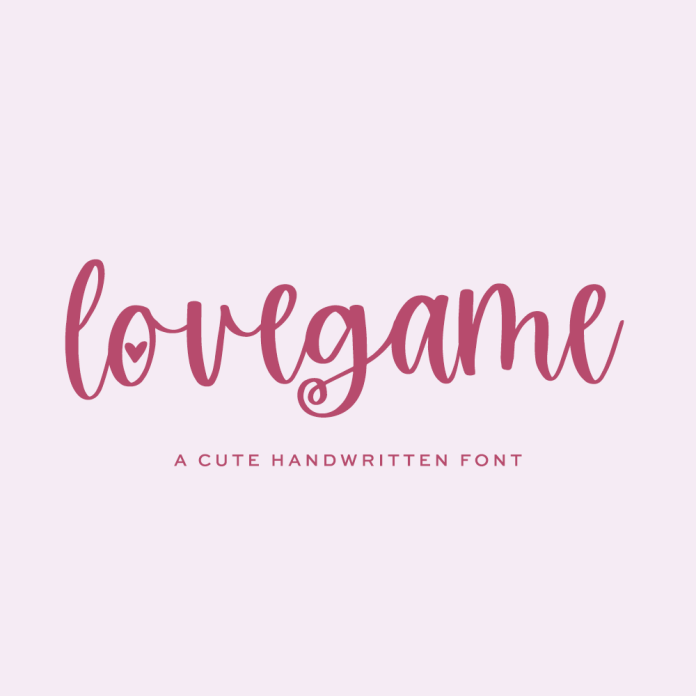
Meet Lovegame Script, a cute bounce calligraphy font with heart accents. Add Lovegame to your font collection just in time for Valentine’s Day & wedding season!
Lovegame Script is best for:
- Valentine’s Day, love, or wedding-themed projects / creations
- crafting projects for Silhouette since Lovegame features a smooth, clean edge perfect for vinyl cutting or SVG design
Lovegame includes:
- 11 alternate characters with hearts or cute flourishes - g, i, j, o, r, t, y, z, j, r, t
- 4 cute heart doodles - solid & outline
- 10 ligatures - bb, dd, ff, ll, mm, nn, oo, pp, ss, tt